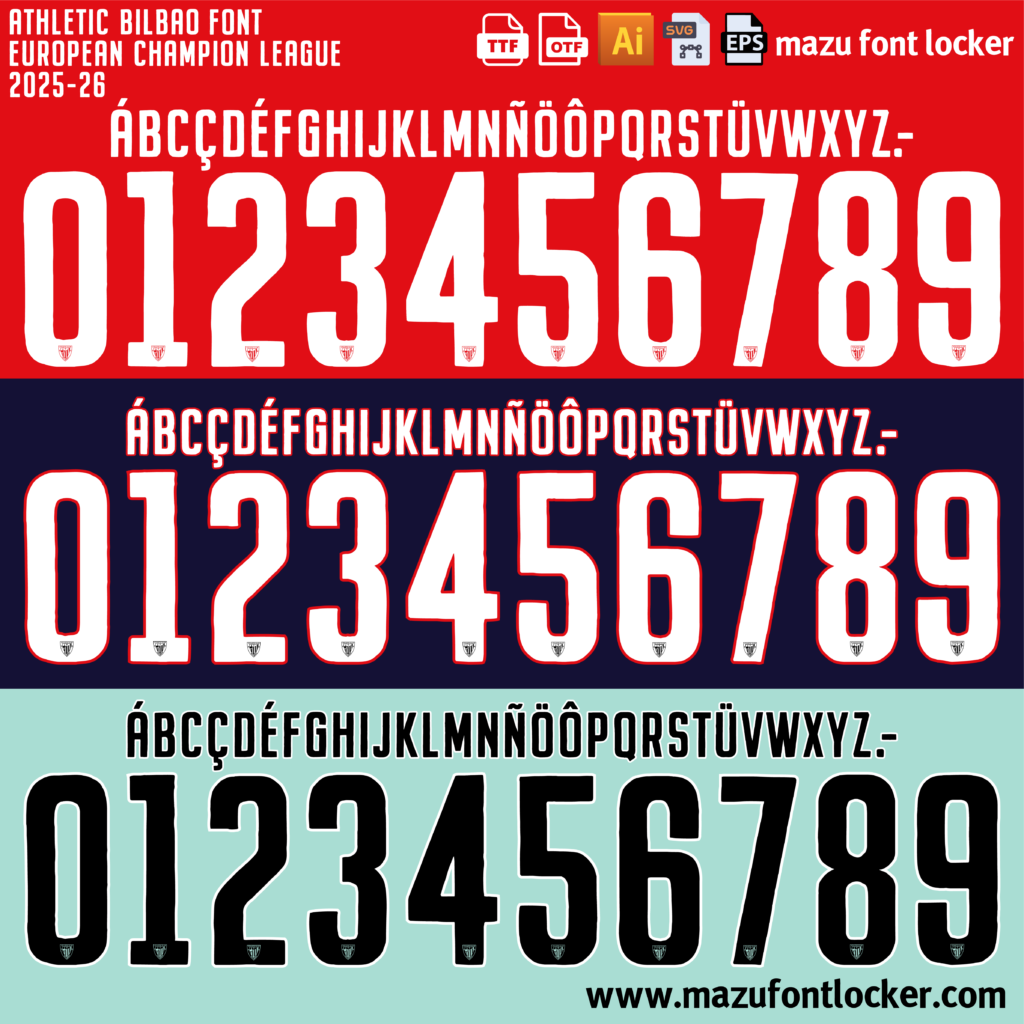
Athletic Bilbao 2025-26 Font Vector – Legendary Basque Warriors
Product Details Athletic Bilbao 2025-26 Font Font Vector – Authentic Jersey Lettering Athletic Bilbao 2025-26 Font font is a high-quality football jersey font vector created to replicate the official lettering and numbering style used during the iconic 2025-26 Season. Perfect for designers, football fans, and jersey customisation projects, this font set delivers an authentic and professional match-day appearance. Inspired by the original Athletic Bilbao 2025-26 team kit, every letter and number has been carefully recreated to ensure accurate retro styling for both digital and print projects. Athletic Bilbao 2025-26 Font Features This premium football font package includes everything needed for professional jersey design and customisation: Authentic 2025-26 Athletic Bilbao jersey lettering style Fully editable vector files Includes OTF and TTF font formats High-resolution scalable design Clean and precise number detailing Suitable for print and digital projects Files Included The package contains complete resources for creating realistic football shirt designs: Full alphabet set (A–Z) Numbers set (0–9) AI, EPS, and SVG vector files OTF and TTF font files 300 DPI high-resolution files All files are organized and easy to use, making installation and editing simple even for beginners. Perfect For Football Jersey Customisation This vintage football font set is ideal for: Custom football jersey printing Cricut and Silhouette vinyl cutting Sportswear branding projects Graphic design and digital artwork Football fan merchandise and collectibles The authentic lettering style helps recreate the classic look of the Athletic Bilbao 2025-26 kit with professional accuracy. Software Compatibility The vector files and fonts are fully compatible with popular design software, including: Adobe Illustrator Adobe Photoshop CorelDRAW You can easily edit, resize, and customize the files without losing image quality. ⚡ Why Choose This Retro Football Font? Unlike generic jersey fonts, this set is designed with a strong focus on authenticity and accuracy. Every detail is based on the original match lettering style used during the 2025-26 season, helping designers and collectors create realistic football shirt designs. The scalable vector format provides complete flexibility for both small and large projects, whether for printing, digital artwork, or personal collections. Easy to Use Simply install the OTF or TTF font files, or edit the vector files directly in your preferred design software. The package is beginner-friendly while still offering professional-quality customization options. Instant Digital Download This is a digital product available for instant download after purchase. No physical item will be shipped. Once downloaded, you can immediately start creating custom football jersey designs. ❓ Frequently Asked Questions What file formats are included? AI, EPS, SVG, OTF, and TTF formats are included. Can I use this font for commercial projects? Yes, suitable for both personal and commercial design projects depending on your license. Additional Information This Athletic Bilbao 2025-26 font vector set is designed for authentic football jersey customization and works perfectly for retro football projects, collector designs, and professional sportswear artwork.